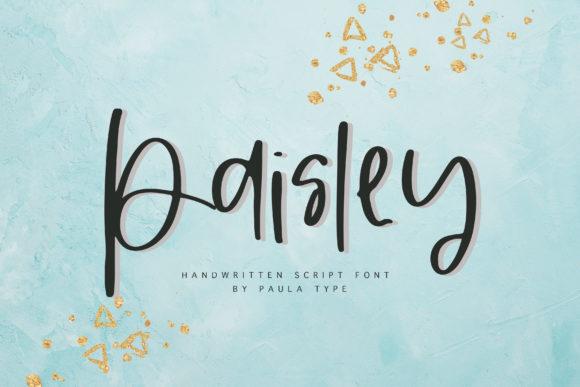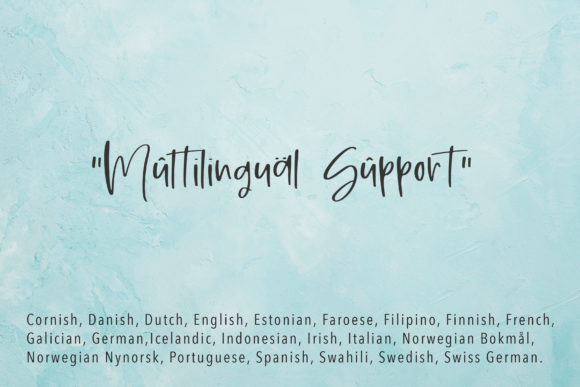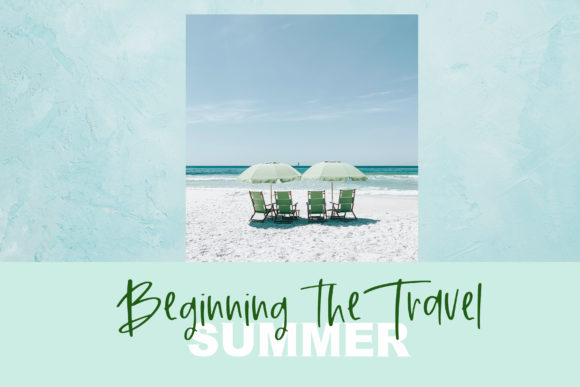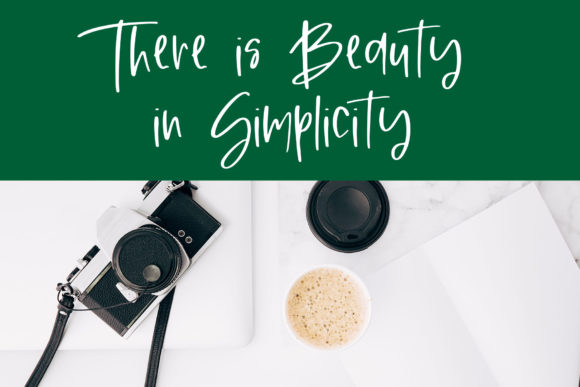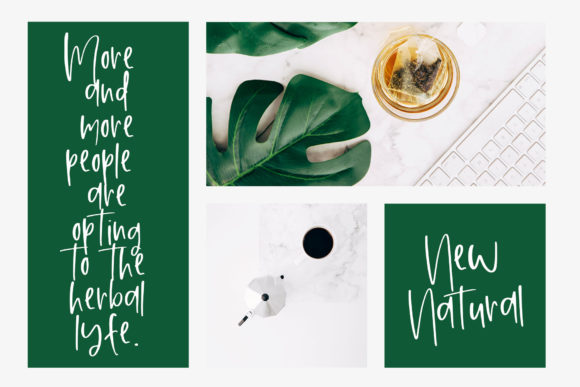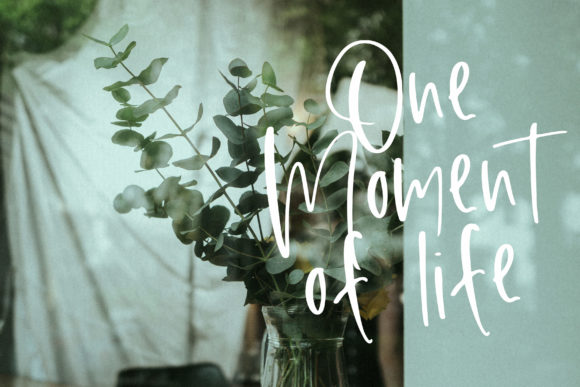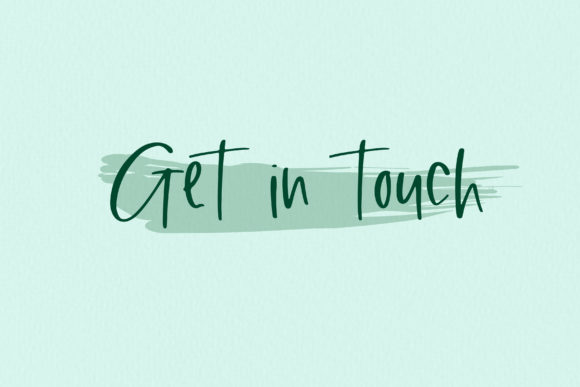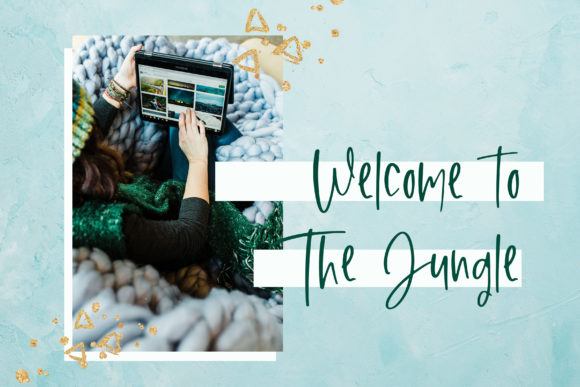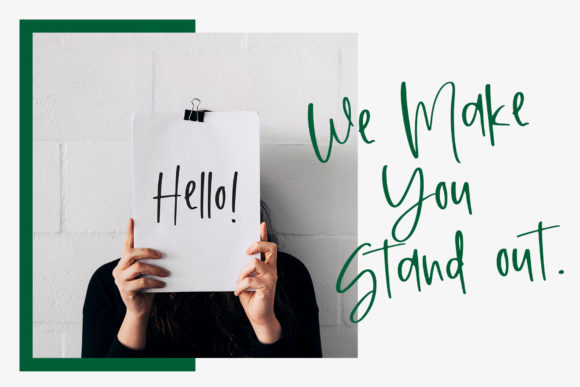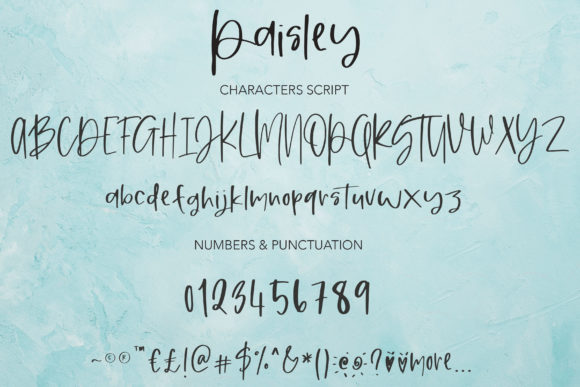
HomeScript FontsPaisley Font Script Fonts Paisley Font FacebookXPinterestWhatsApp Paisley Font Poster 2 Paisley Font Poster 3 Paisley Font Poster 4 Paisley Font Poster 5 Paisley Font Poster 6 Paisley Font Poster 7 Paisley Font Poster 8 Paisley Font Poster 9 Paisley Font Poster 10 About Paisley Font Paisley is a fresh and organic handwritten font with a modern feel. Get inspired by its simple feel. DOWNLOAD NOW People also explored Burswood Font Ralalla Font Gitago Font Bjorn Rider Font Valesta Font Barrington Font Saturas Font Hirestari Love Font Hillary Youth Font 272 0 TagsPaisley Font Previous articleSkynova Duo FontNext articleHikaru Font LEAVE A REPLY Cancel reply Comment: Please enter your comment! Name:* Please enter your name here Email:* You have entered an incorrect email address! Please enter your email address here Website: Save my name, email, and website in this browser for the next time I comment. Personal Use Free Boldist Personal Use Free Read more about this font Rare Knuckle Personal Use Free Read more about this font Aragon Personal Use Free Read more about this font Mariyam Personal Use Free Read more about this font BLOG Top 10 Handwritten Fonts That Elevate Your Designs Top 10 Handwritten Fonts That Will Elevate Your Designs Handwritten fonts bring a warm, personal touch to every creative project. Whether you're designing logos, invitations,... Top 7 Google Fonts Alternatives for Faster and Privacy-Friendly Web Design (2025) How to Install and Use Fonts on Windows, macOS, and Web Projects Best Fonts for T-Shirt Design – Top 2025 Picks